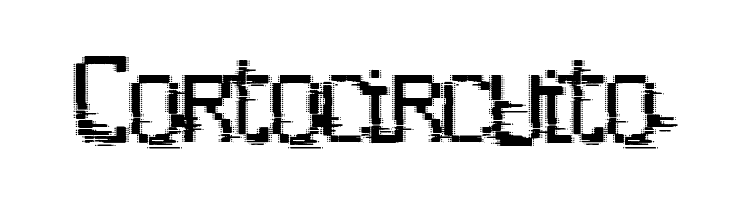
A bold, geometric font with a three-dimensional outline, ideal for display use.
A bold, geometric font with a three-dimensional outline effect.
A bold, semi-italic typeface with smooth curves and a modern, dynamic style.
A playful, bold, and cartoonish font with a hand-drawn, shadowed style.
A bold, pixelated font with a retro digital style.
A futuristic italic font with a halftone effect and tight spacing.
A dynamic, brush-style font with an energetic, handwritten feel.
A playful, hand-drawn font with rounded, flowing lines and a whimsical style.
A bold, playful font with rounded edges and thick strokes.